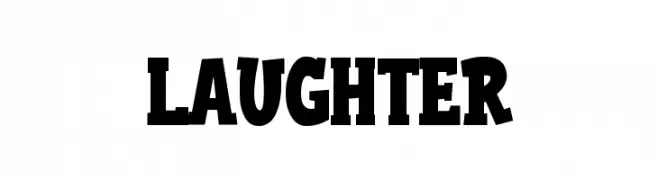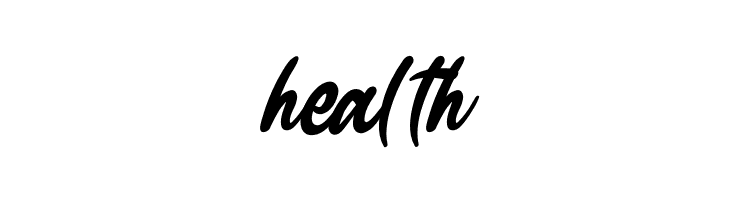
( Fonts by Pinisiart )
Bold, playful display font with exaggerated serifs and quirky shapes.
( Fonts by BlackFridayFont FMF )
Bold, whimsical display font with hand-drawn, uneven shapes.
( Fonts by Md Shohail Bhuian )
Handwritten, rounded sans-serif with playful character.
( Fonts by wep )
Handwritten script font with elegant, flowing strokes.
( Fonts by Bearytype )
Elegant, handwritten script with tall, flowing letters.
( Fonts by Letterena Studios )
Handwritten script font with a casual, flowing style.
( Fonts by Storytype Studio )
A refined, decorative script with thin, flowing lines and ornate swashes.
( Fonts by Planetz Studio )
A thin, tall, handwritten script with a casual, organic appearance.
( Fonts by Behind the Ink )
A whimsical handwritten script with tall, narrow letters and a casual style.
( Fonts by Scratchones )
Casual handwritten script with brush-like strokes.